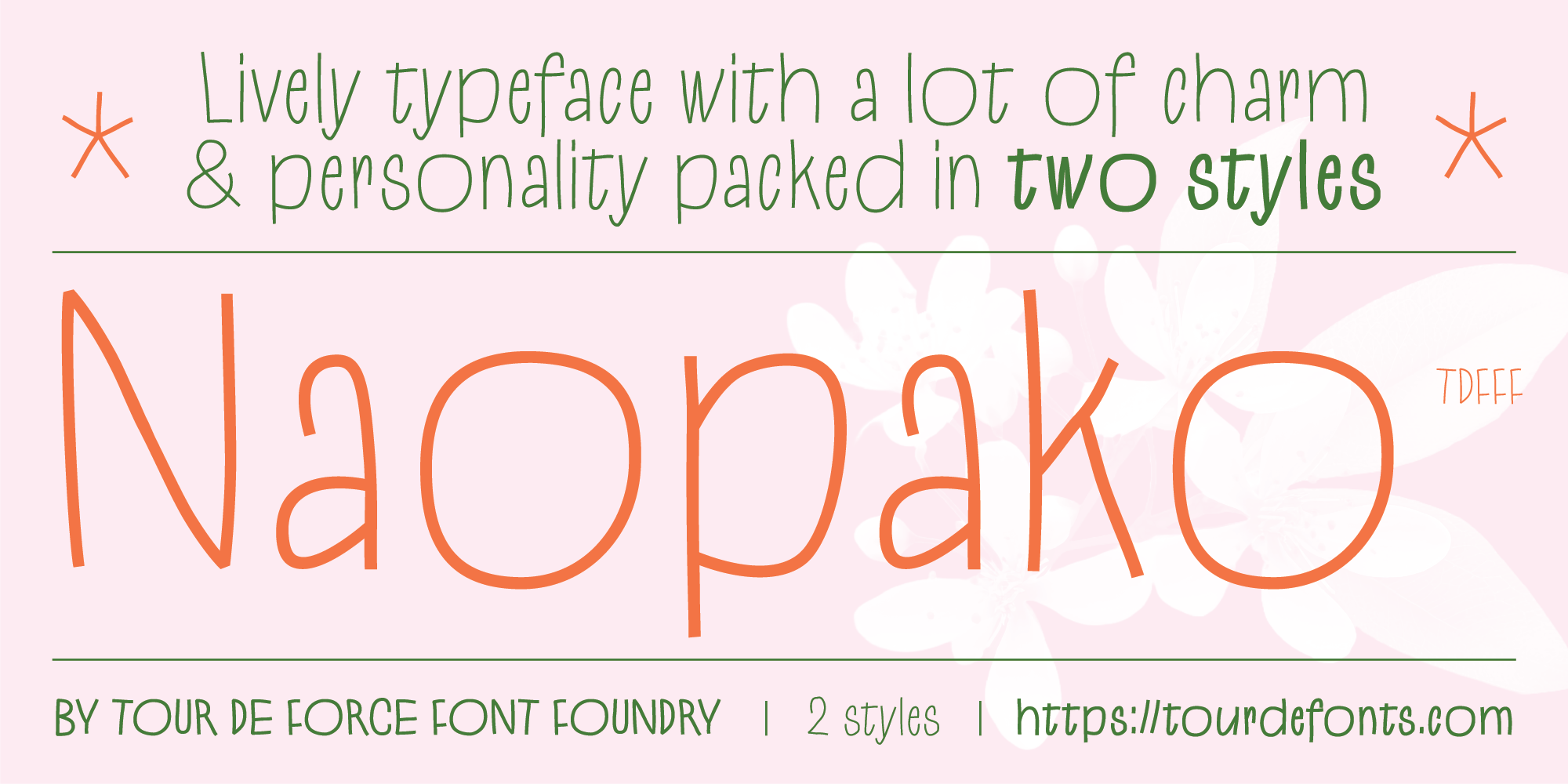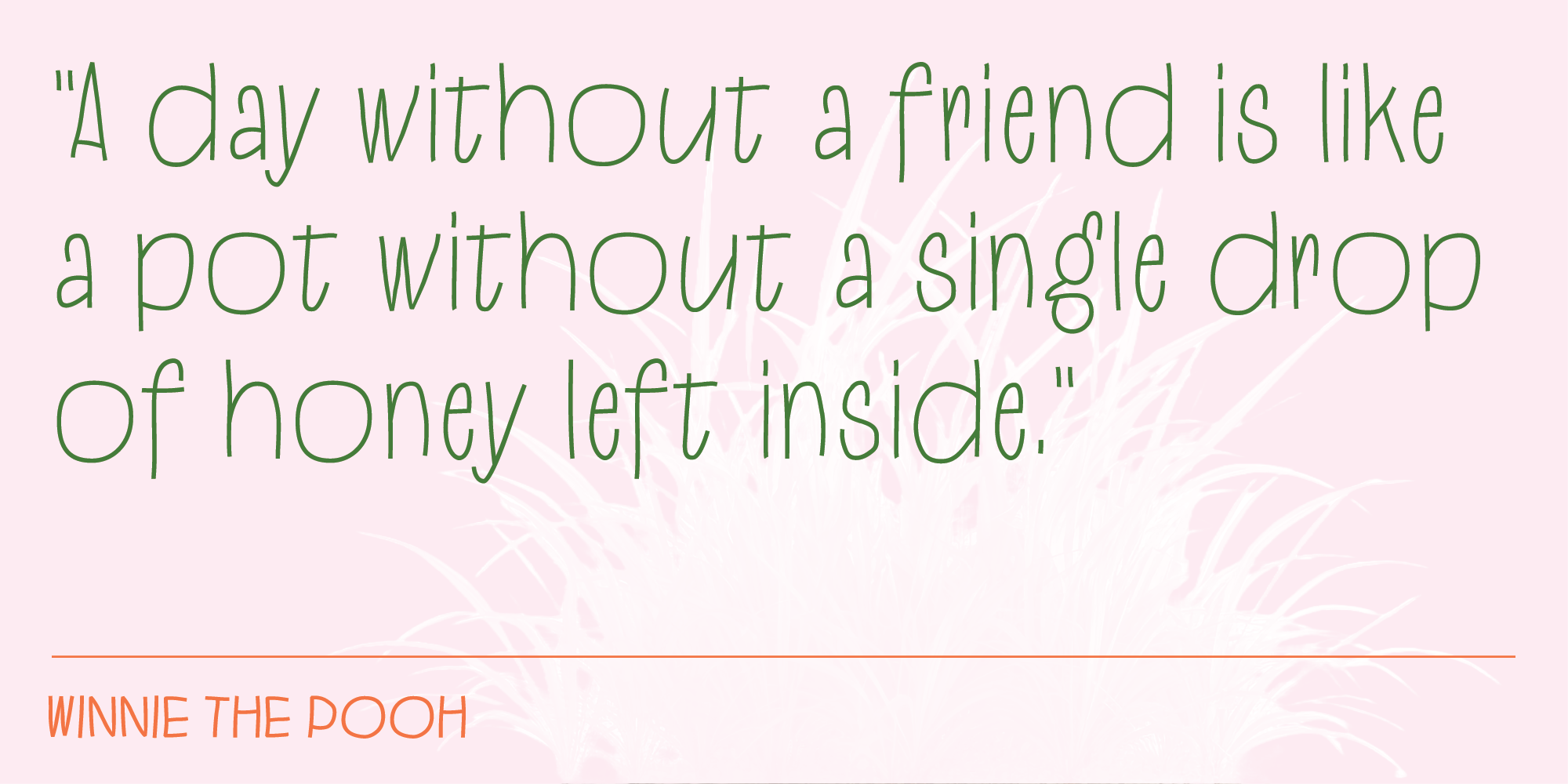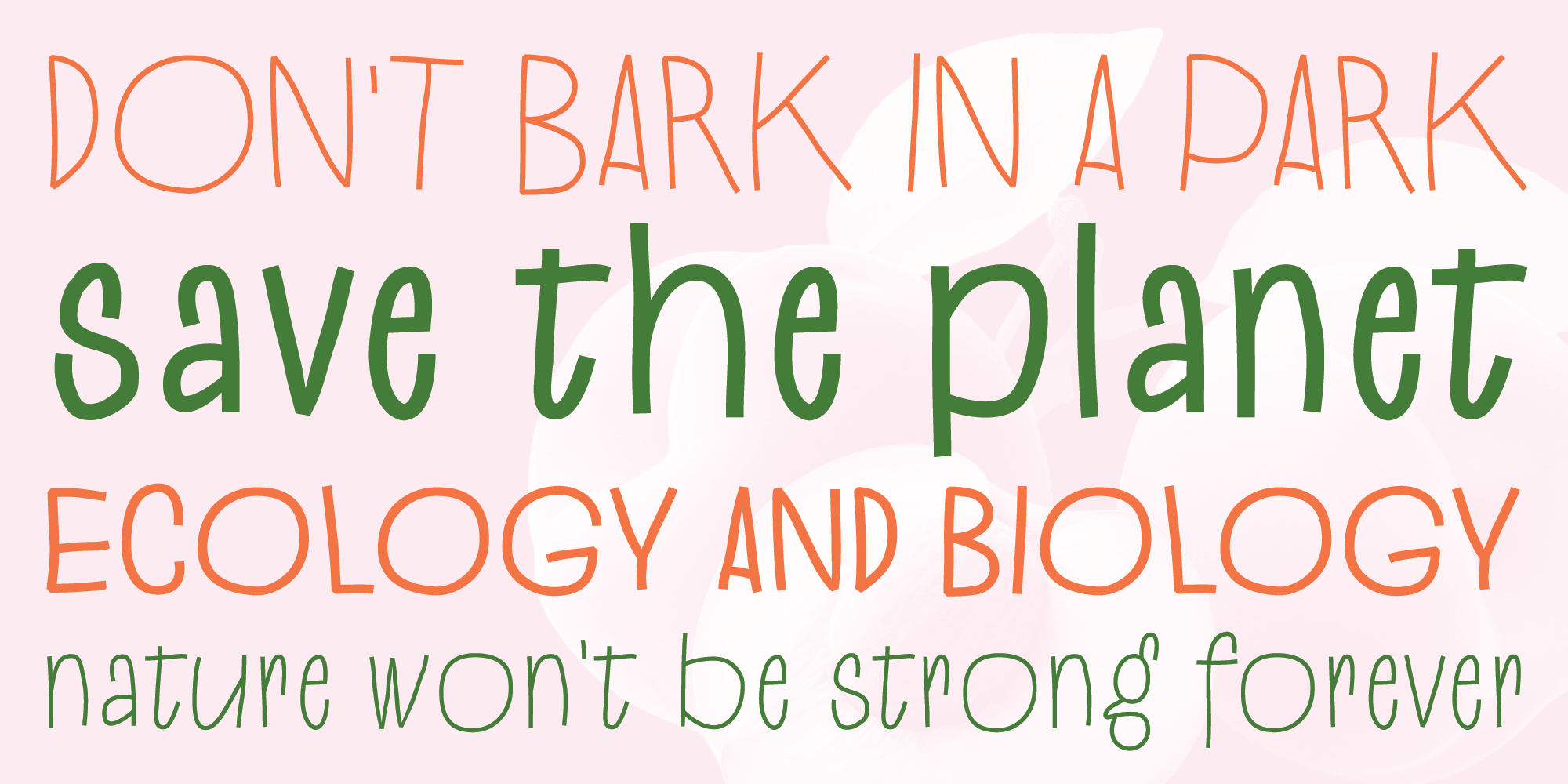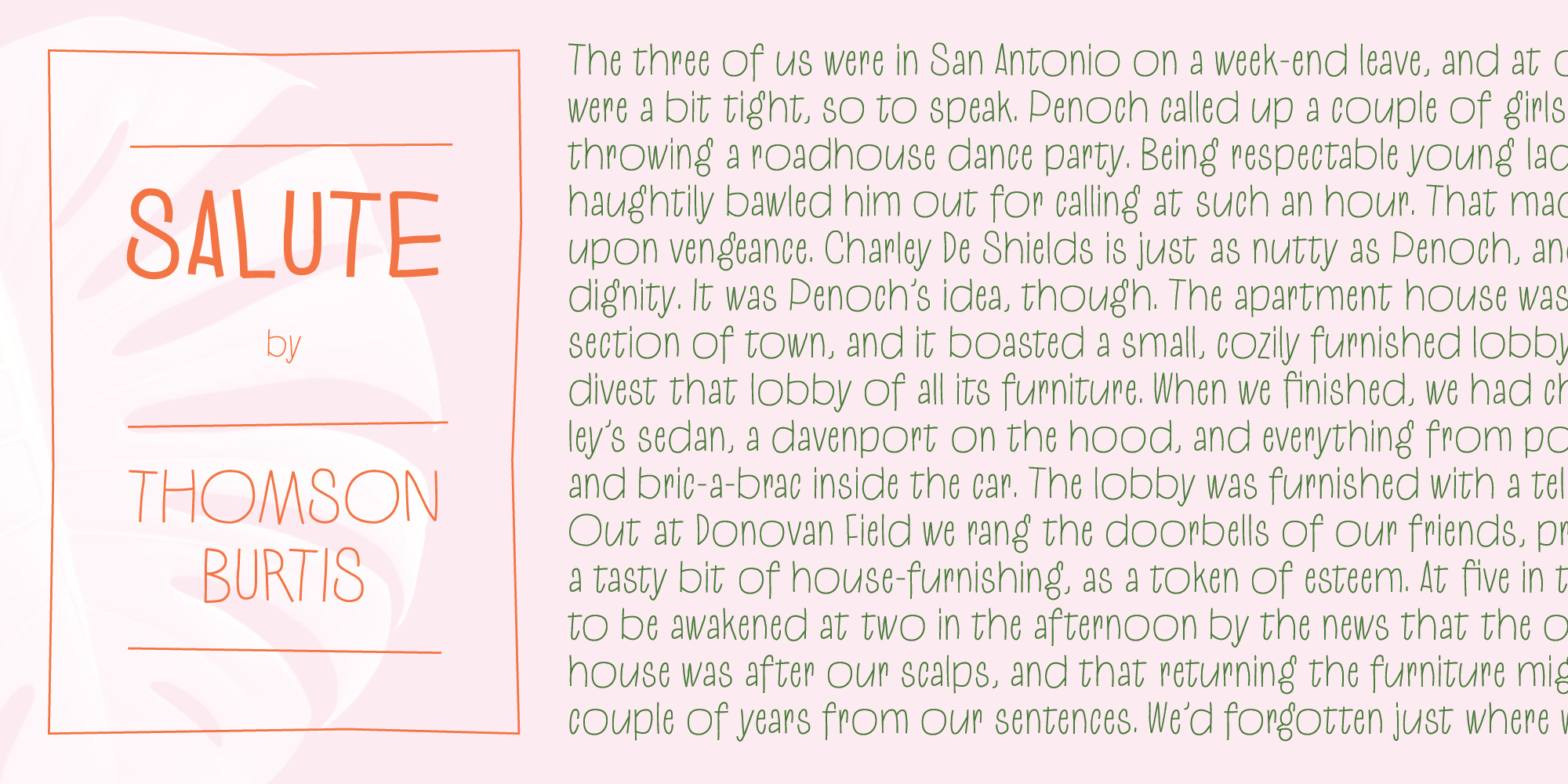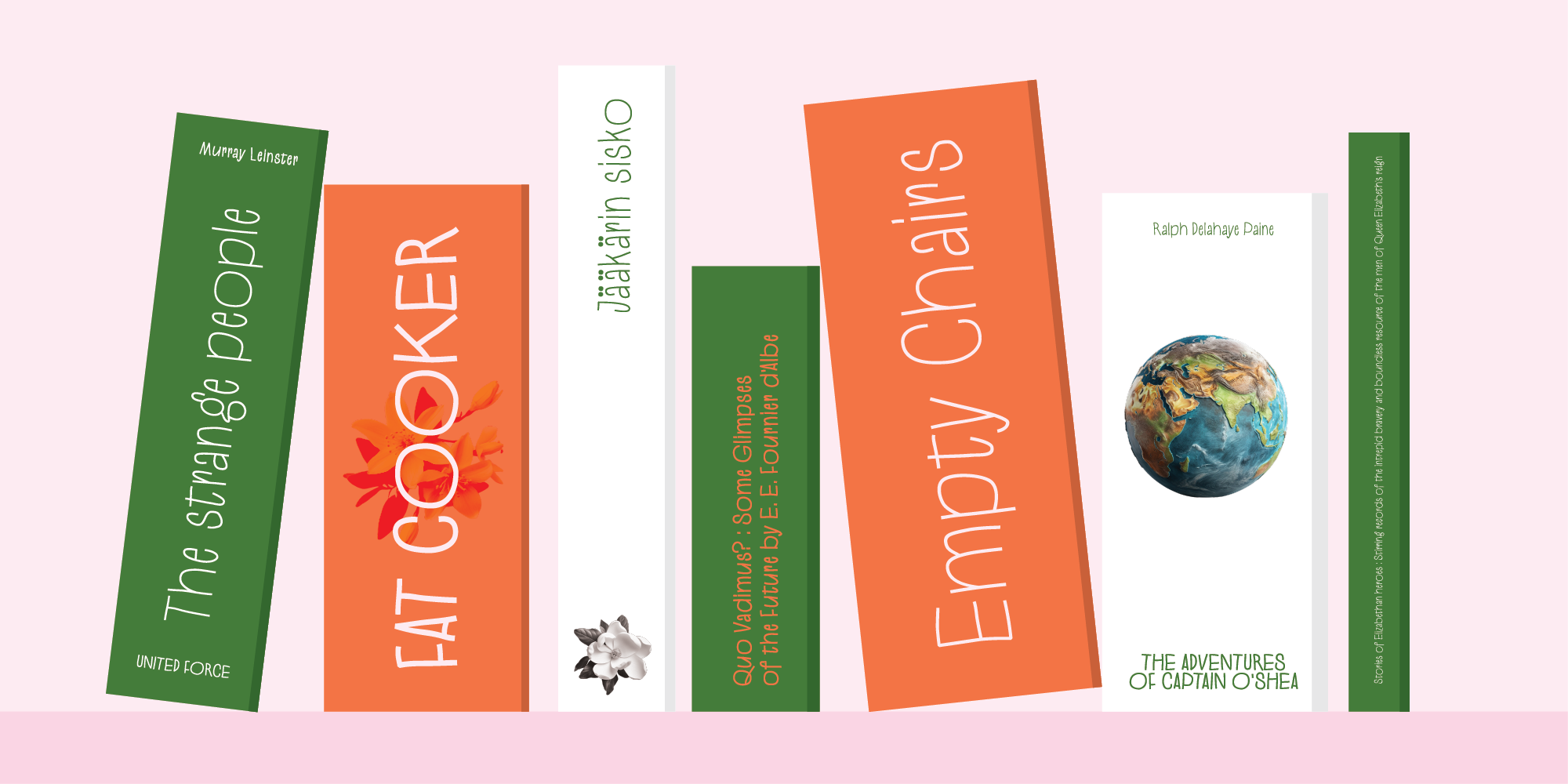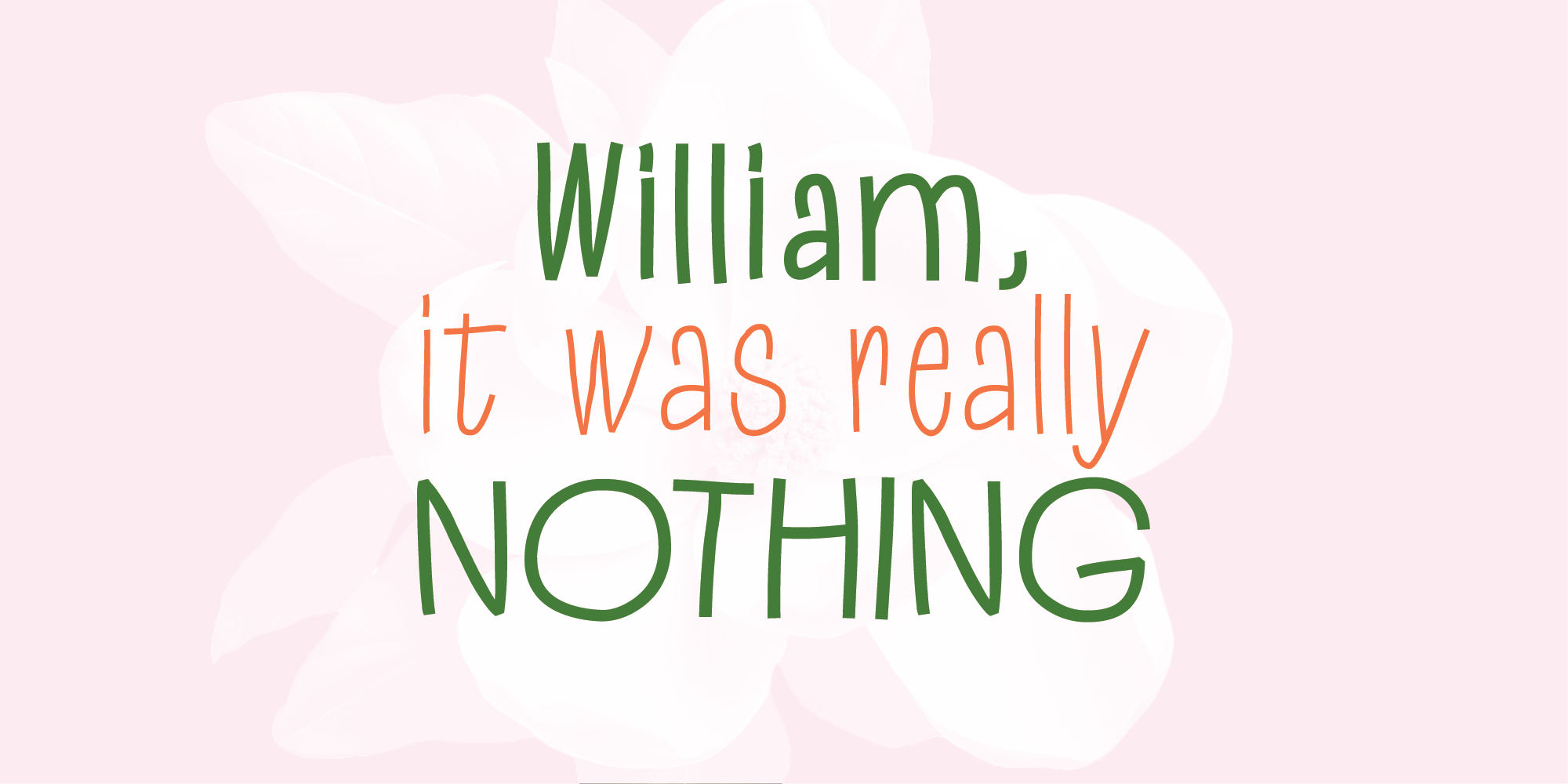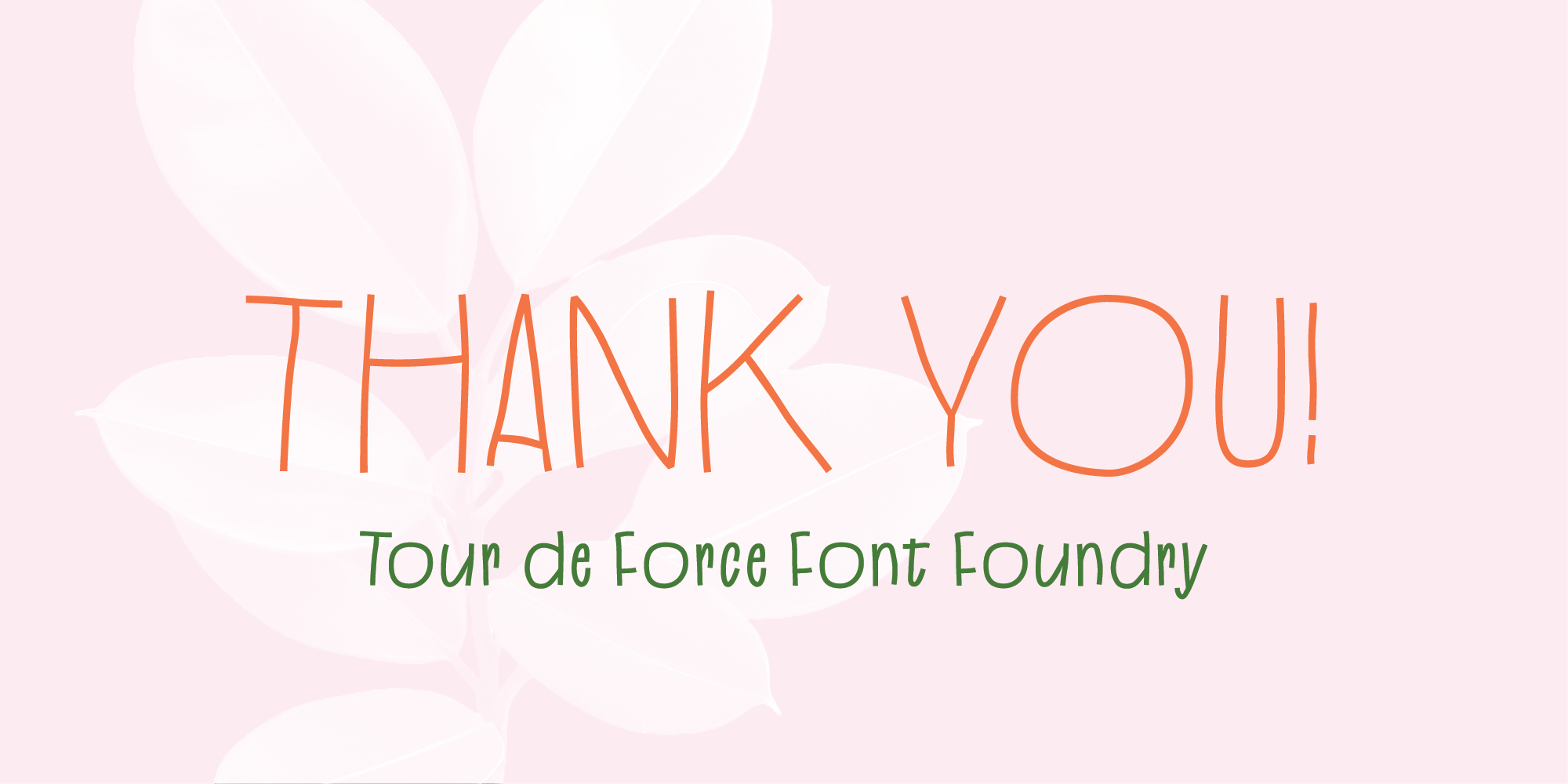
Naopako is display font family available in 2 styles – Regular and Bold. It is lively typeface with a lot of charm and personality inspired by kids handwriting.
Disproportional letter character creates interesting rhythm of letters while monoline stem style allows great legibility in all font sizes. Naopako works well in any situation and in most design projects, especially ones that allow designers a lot of fun and creativity.
Comes with Standard Ligatures as OpenType Features and with Extended Latin language coverage.